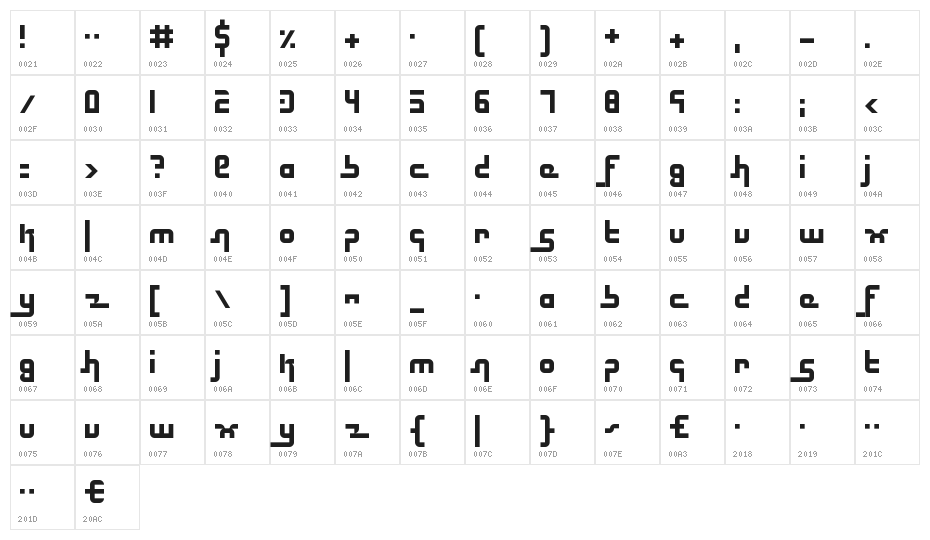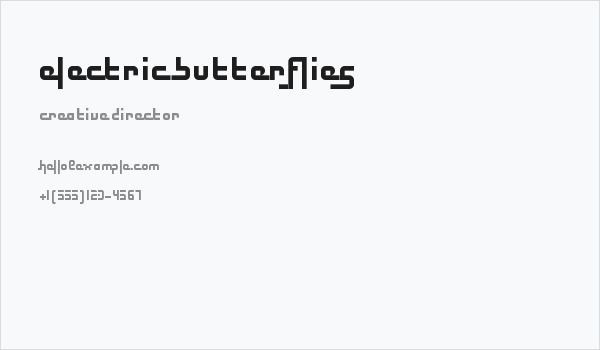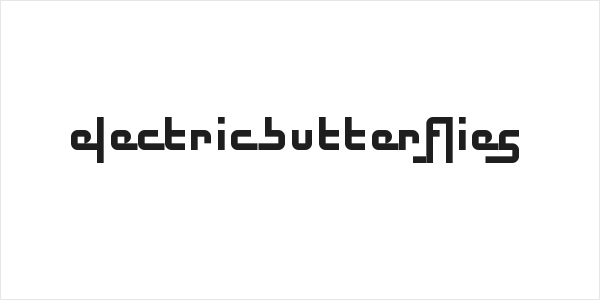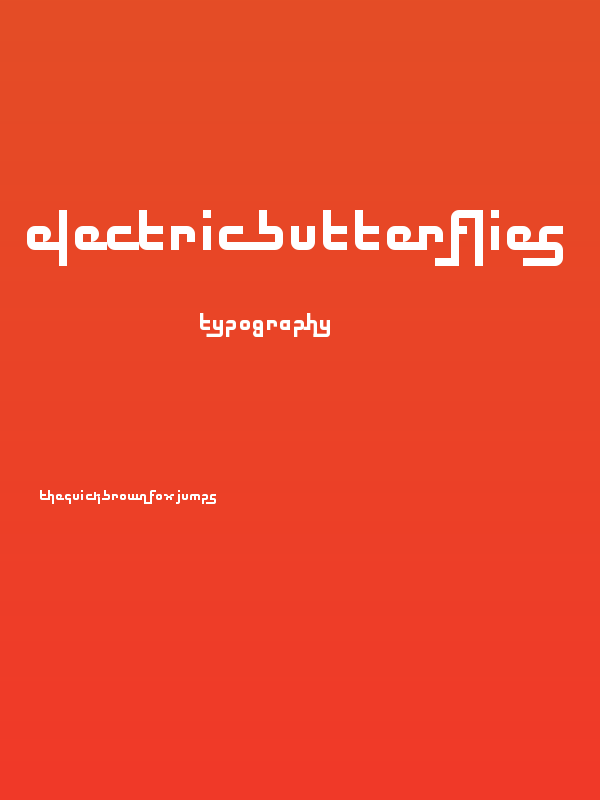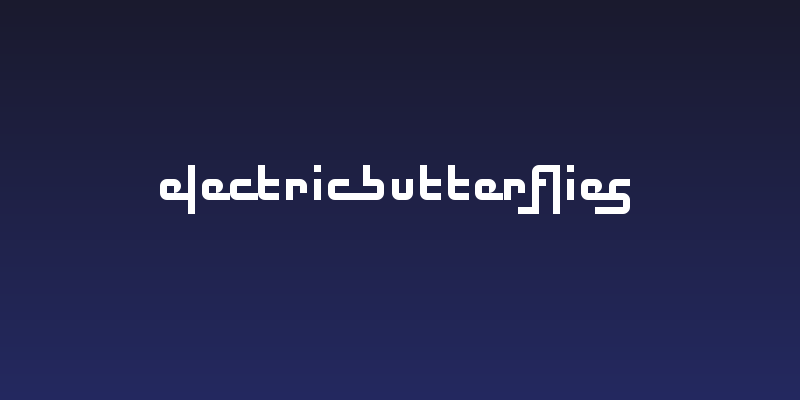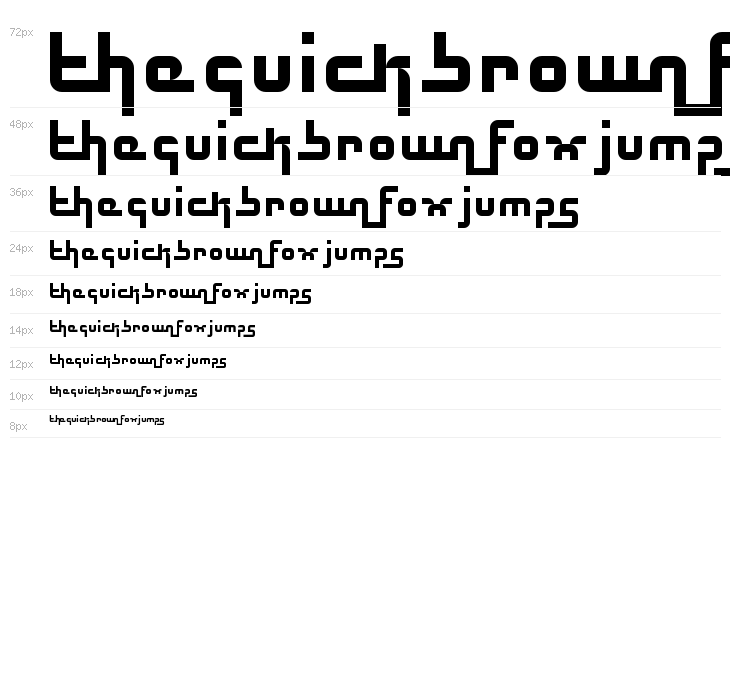
Electric Butterflies Font
Electric Butterflies Description
This font features a bold, geometric design with a futuristic aesthetic. The characters are constructed with straight lines and sharp angles, giving it a blocky and robust appearance. The uniform thickness of the strokes contributes to a cohesive and modern look. The uppercase and lowercase letters maintain a consistent style, while the numbers and special characters complement the overall design. The font's unique style makes it stand out, suitable for projects that require a strong visual impact.
| Proposed Projects | Ideal for technology branding, video game titles, sci-fi movie posters, and digital media projects. |